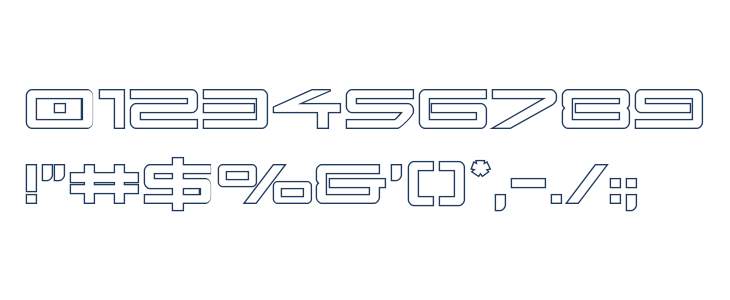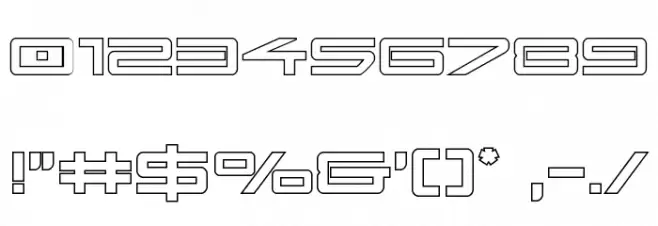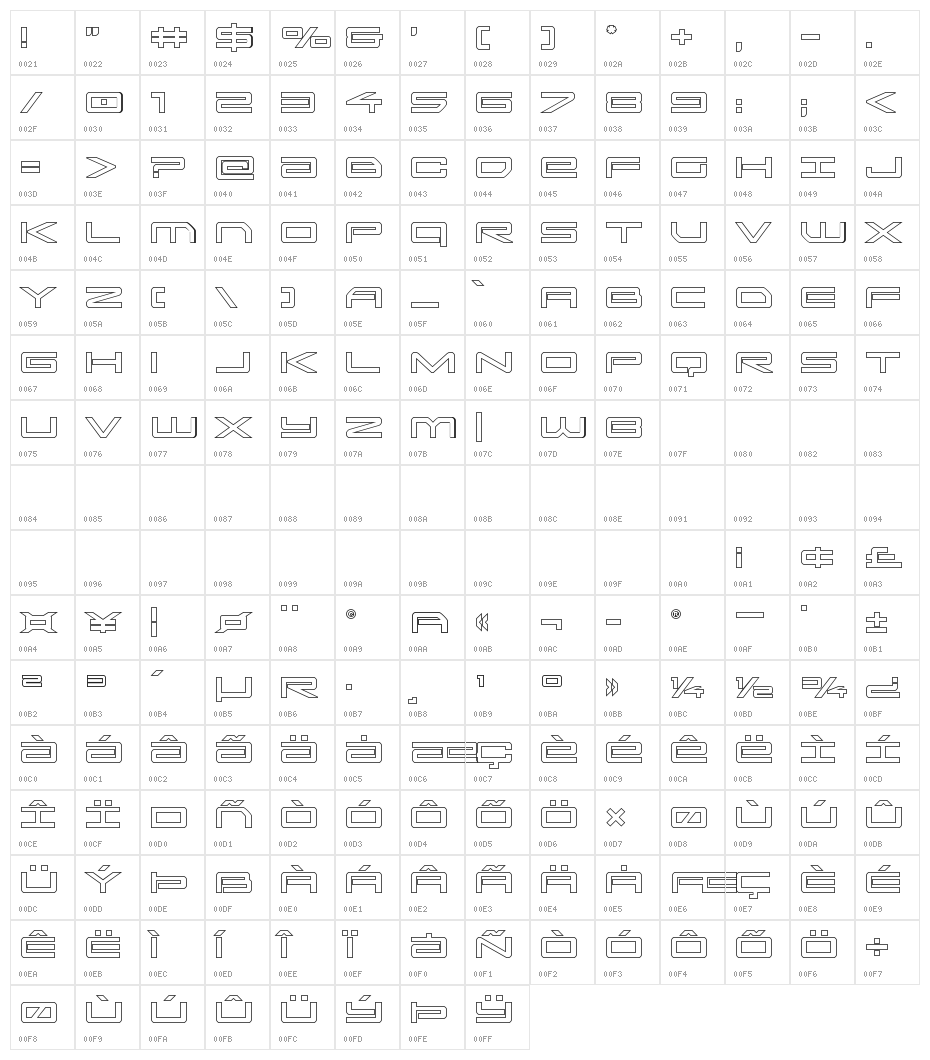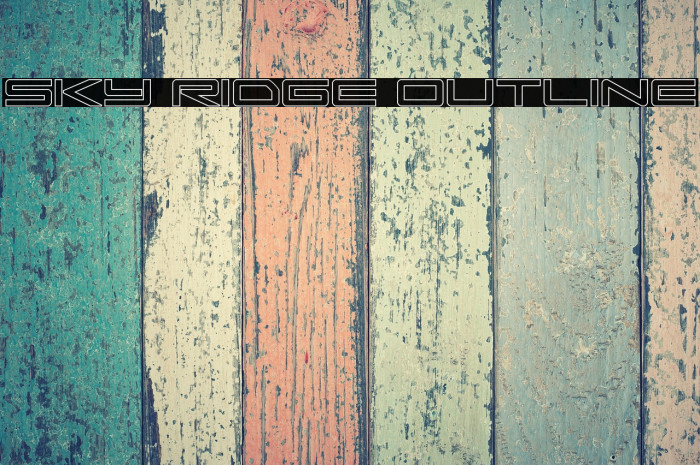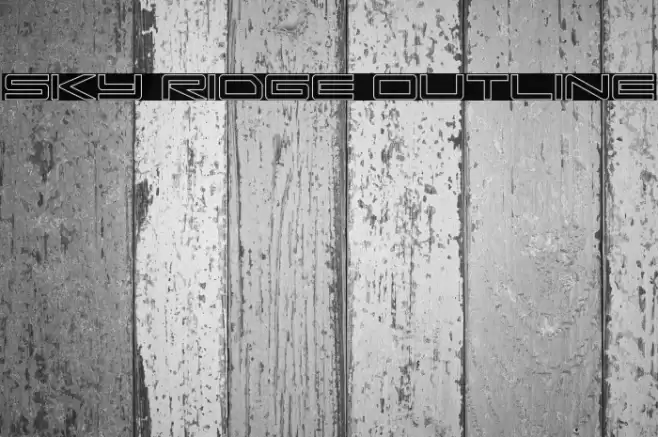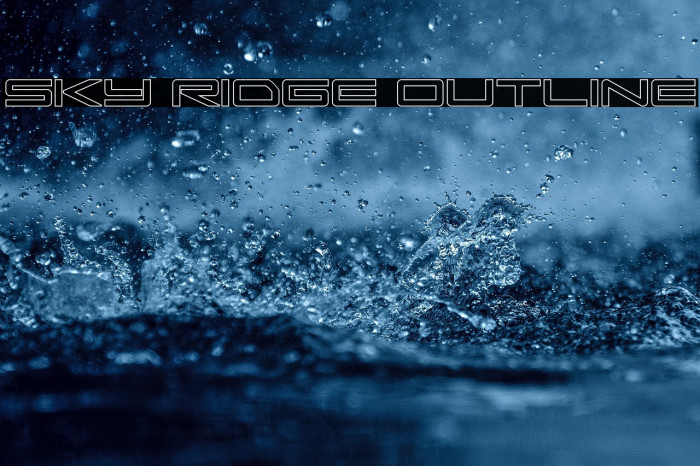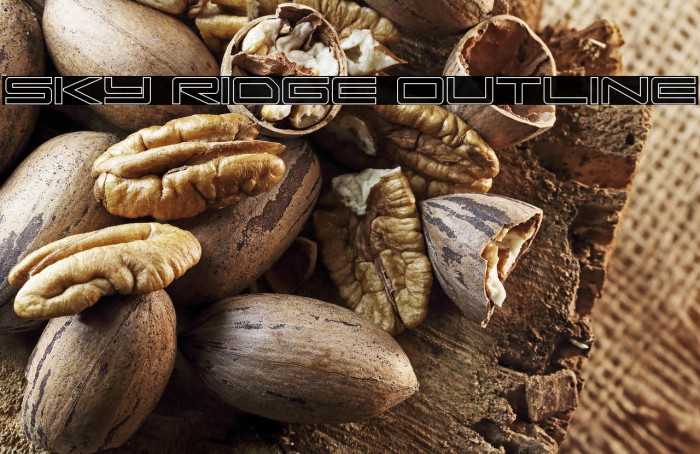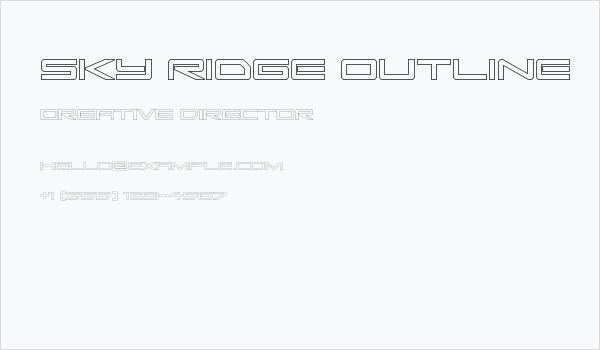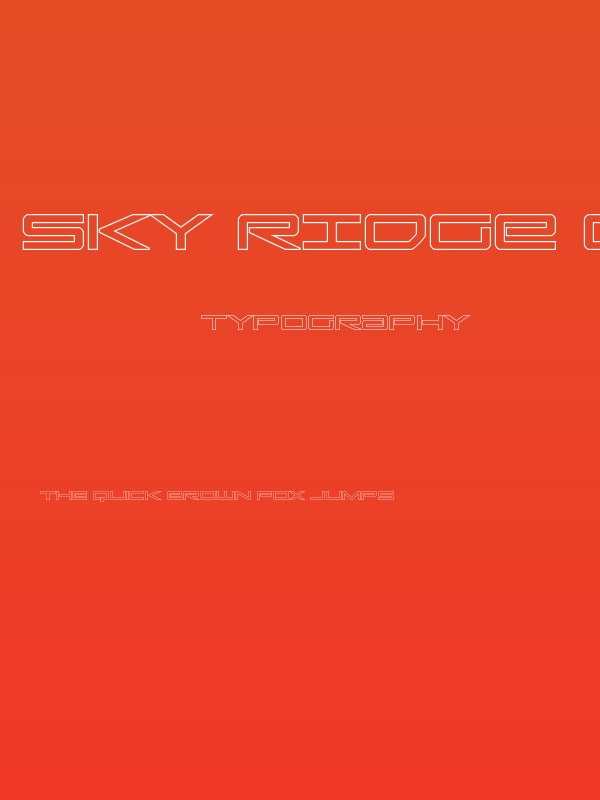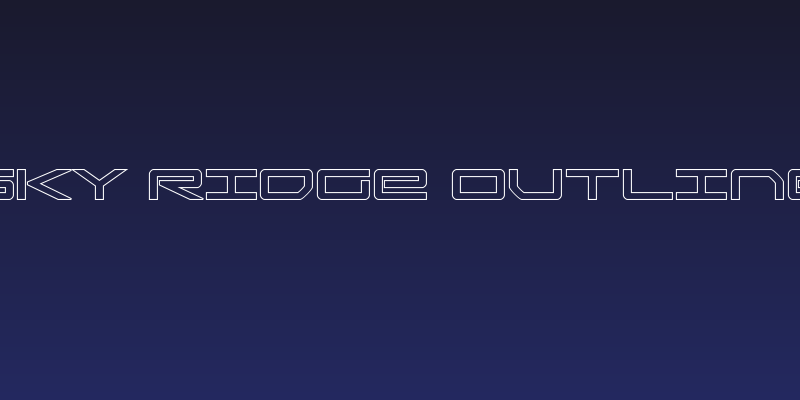
Sky Ridge Outline Font
Sky Ridge Outline Description
This font features a distinct outline style with a futuristic and geometric appearance. The characters are constructed with clean, sharp lines that form a hollow interior, giving them a modern and technical look. The uppercase and lowercase letters maintain a consistent design, with angular edges and uniform line thickness. Numbers and special characters follow the same aesthetic, ensuring a cohesive visual identity. The font's design is ideal for projects that require a sleek, contemporary feel, such as technology branding or sci-fi themed graphics.